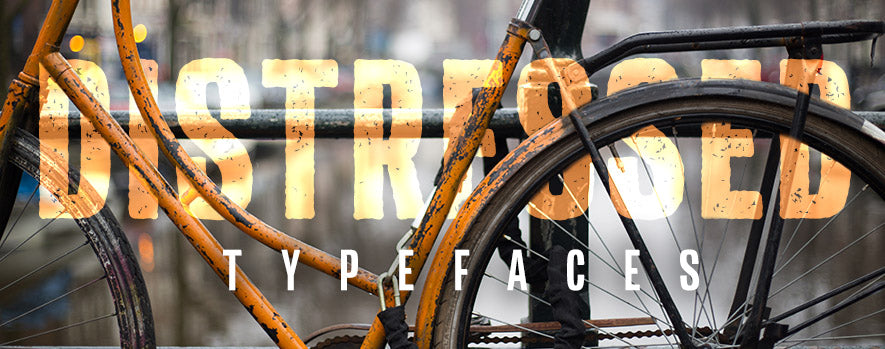
Today's design world is centered around originality and standing out. Breaking design rules and embracing imperfections is more important than ever to create a more authentic look. The rise of distressed fonts (typefaces designed with rough, worn edges and elements) bring in character and a unique visual appeal to our design projects. Let's explore the allure and versatility of distressed fonts, unveiling their hidden advantages that they bring into a design to transform it into something totally new.
The Art of the Distressed Font
With the vast majority of the digital world dominated by pristine sans-serif typefaces and sleek design aesthetics, distressed fonts emerge as a breath of fresh air, inviting us to embrace the beauty of imperfection. These fonts are purposely crafted to appear worn, weathered, or even damaged, giving them a distinct personality and an intriguing story to tell (perfect example: Deadmill, Wild West Serif). By simulating the effects of aging, distressing, or deterioration, designers can evoke a sense of history, nostalgia, and authenticity that resonates with viewers on a deep level. The messier, the better - as long as the letterforms in the typeface are still legible (yes, it's possible for the distressing to get out of hand).
The Versatility of Distressed Fonts
Distressed fonts are not limited to a specific design style or era. They possess a remarkable versatility that allows them to adapt to various creative contexts, from vintage and retro designs to grungy, urban aesthetics. Whether you're working on a poster for a music gig, revamping a classic album cover, or designing a rustic-themed wedding invitation, distressed fonts can add that perfect touch of character and visual interest. Any typeface style can benefit from a distressing effect - serif, sans-serif, wedge serif, you name it.
Redefining Time Periods With Distressed Overtones
One of the remarkable aspects of typefaces in general is their ability to capture the essence of time and evoke a bygone era. They effortlessly transport us to the roaring '20s, the rebellious '60s, or the gritty urban streets of the '90s by utilizing the popular styles of the day. By adding in a distressed effect to these era-specific typefaces, designers can now fuse that iconic time period design with a modern stylization.
Expressing Personality and Attitude
Distressed fonts possess a unique power to communicate personality and attitude. Their rough edges, uneven lines, and imperfect forms exude a sense of rebellion, authenticity, and non-conformity. When used in designs with the intention of capturing a specific mood or message, distressed fonts can amplify the impact and convey a raw, gritty aesthetic. From conveying a punk-rock spirit to evoking a vintage charm, these fonts add layers of meaning and depth to your design projects.
Tips for Using Distressed Fonts Effectively
While distressed fonts can be an excellent addition to your design toolkit, it's essential to use them thoughtfully and purposefully. Here are a few tips to help you make the most of these captivating typefaces:
Contextual Relevance: Consider the theme, mood, and message of your design project to choose a distressed font that aligns with its purpose.
Legibility Matters: While embracing imperfection, ensure that the distressed font remains legible and doesn't compromise the overall readability of your text. Expat, for example, utilizes a stroke around the outside edge of the letterform to prevent the distressing from cutting into the shape of the letter.
Experiment and Mix: Combine distressed fonts with other complementary typefaces to create visually engaging compositions that capture attention and maintain harmony.
Authenticity and Intention: Use distressed fonts with purpose and authenticity. Avoid the temptation to use them solely for aesthetic appeal; instead, let them enhance the storytelling aspect of your design. Deadmill, for example, is designed to look like it came from the wild west era, but with modern distressings.
Conclusion